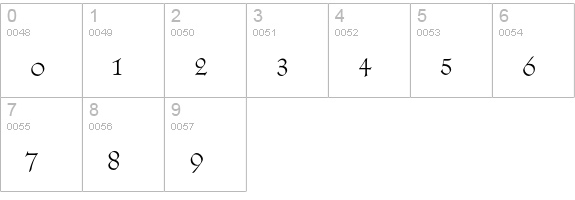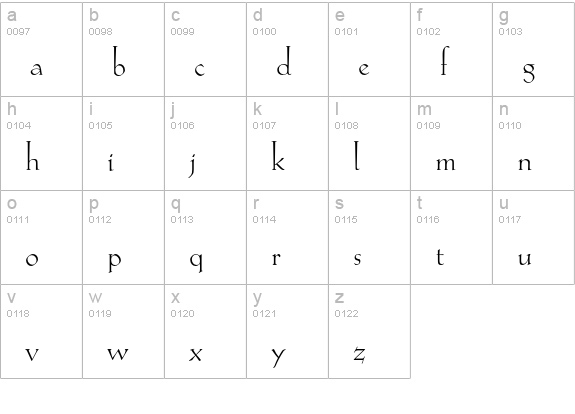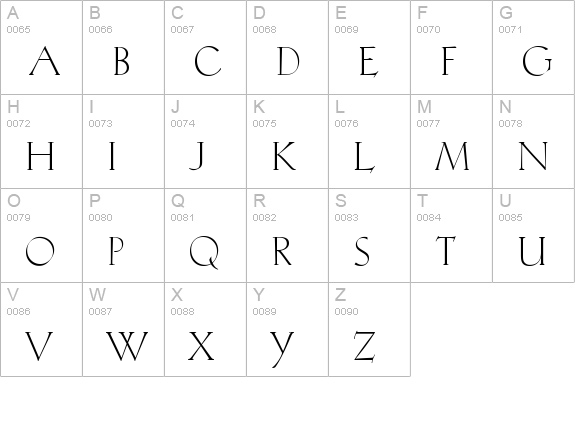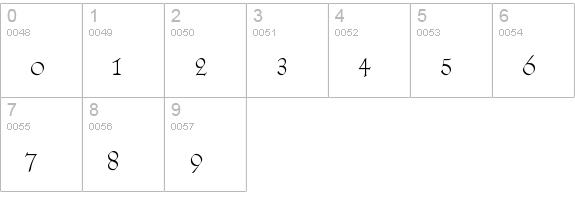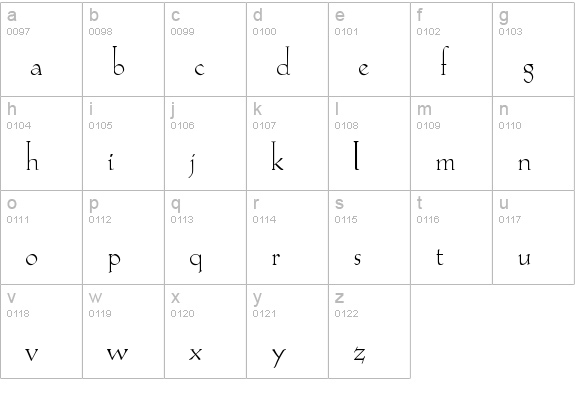
Kuenstler 165 is a versatile and elegant serif font that exudes sophistication and style. Its classic and timeless design makes it suitable for a wide range of projects, from branding to editorial design. The graceful serifs and clean lines of Kuenstler 165 give it a refined and polished look that will elevate any design it is used in. What sets Kuenstler 165 apart is that it is not only a stunning font, but it is also free to download. Yes, that's right - this beautiful typeface is freely available at FontsMarket.com, allowing designers and creatives to access its beauty and versatility without any cost. Whether you are working on a personal project or a professional assignment, Kuenstler 165 is a fantastic choice that won't break the bank. With its sophisticated charm and accessibility, Kuenstler 165 is a must-have font for anyone looking to add a touch of class to their designs. Download it for free today at FontsMarket.com and see how this stunning typeface can elevate your work to new heights.